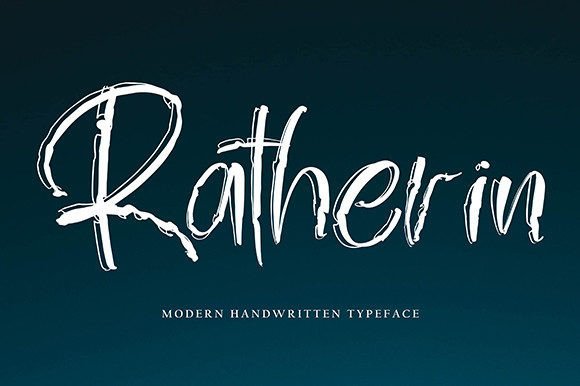
Introducing Ratherin Font, a captivating script typeface that will transform your creative vision into a masterpiece. Immerse yourself in its graceful curves and elegant flow, designed to evoke the essence of handwritten artistry.
Ratherin Font is not just a collection of letters; it's a gateway to a world of design possibilities, perfect for adding a touch of sophistication and charm to your projects. Whether you're a seasoned designer or just starting your creative journey, Ratherin Font will empower you to express your unique style with confidence.
Its versatility knows no bounds. Use Ratherin Font to craft enchanting wedding invitations that capture the joy and romance of your special day. Design social media graphics that stand out from the crowd, leaving a lasting impression on your audience. Create eye-catching logos that embody your brand's personality and make a statement in the competitive digital landscape.
With Ratherin Font, you'll discover a new level of creative freedom. Its flowing lines and elegant curves will effortlessly elevate your designs, adding a timeless touch to any project. Embrace the beauty of handwritten charm and watch your creations come to life with a touch of graceful sophistication.
Don't settle for ordinary fonts when you can have extraordinary. Choose Ratherin Font and unleash your creativity like never before. Its exceptional quality and timeless style will make all the difference in your designs, ensuring that they leave a lasting impression.
Indulge in the world of Ratherin Font and let your imagination soar. Its versatility, elegance, and charm will captivate your audience and leave them craving for more. Experience the power of a font that transforms your designs into works of art.